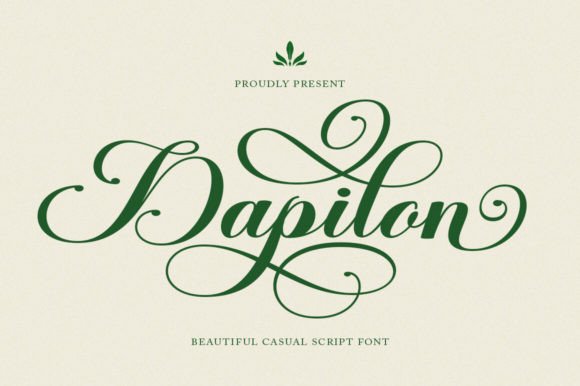
Adenman Posted May 13 Share Posted May 13 Dapilon Modern Calligraphy Font, made with Natural & precision, is perfect for branding, websites, and editorial designs. Includes all Character’s letters, multilingual support, punctuation, and binding. This font is PUA encoded which means you can access all of the amazing glyphs and ligatures with ease! Compatibility: windows & apple/mac & linux Giveaway Link –> https://www.creativefabrica.com/product/dapilon/ phen0men4, vhick, MrZeb and 1 other 1 3 Link to comment Share on other sites More sharing options...